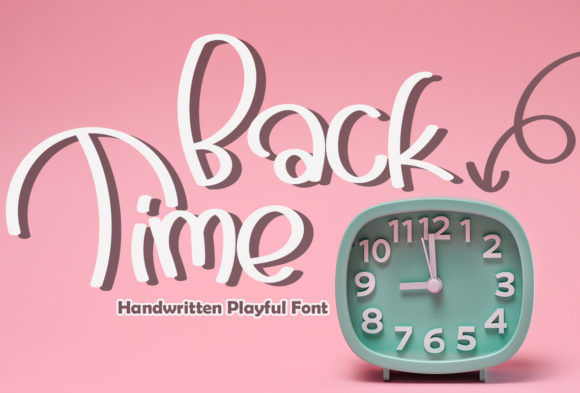
Journey back in time with Back Time Font, a whimsical and enchanting script font that will transport you to a world of nostalgia and charm. Crafted with the utmost care by the talented rulihoki studio, this font exudes a playful spirit that will add a touch of whimsy to your creative endeavors.
Immerse yourself in the captivating world of Back Time, where each letter dances and twirls like a mischievous sprite, inviting you to explore your imagination and create designs that resonate with joy and wonder. Whether you're designing wedding invitations, thank-you cards, heartfelt quotes, or eye-catching logos, Back Time will imbue your creations with a timeless elegance that will leave a lasting impression.
As you embark on your creative journey, Back Time will be your steadfast companion, guiding you through a myriad of design possibilities. Its versatility knows no bounds, effortlessly adapting to a wide range of styles and themes. From the delicate strokes of wedding invitations to the bold statements of business cards, Back Time seamlessly blends with your vision, transforming your ideas into tangible expressions of beauty.
With Back Time at your fingertips, you'll discover a world where creativity flourishes and dreams take flight. Let your imagination soar as you craft designs that evoke a sense of wonder and captivate the hearts of your audience. Back Time is more than just a font; it's an invitation to embark on an artistic adventure, where every stroke of your keyboard becomes a brushstroke painting a masterpiece of visual delight.
Step into the enchanting world of Back Time Font and let your creativity shine brighter than ever before. With its playful charm and boundless versatility, Back Time will elevate your designs to new heights, leaving a trail of beauty and inspiration in its wake.